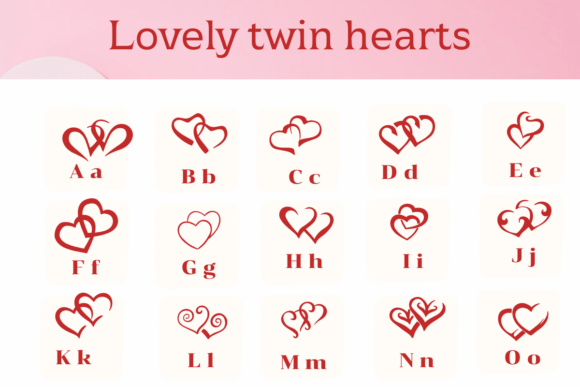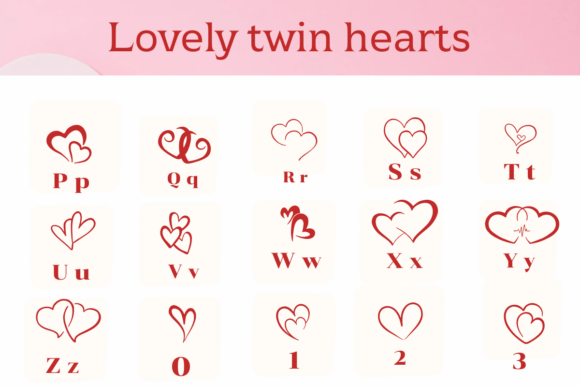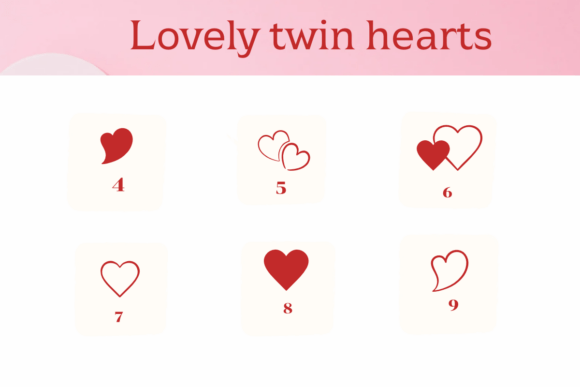
Introduction to Lovely Twin Hearts Font
As a designer, there’s nothing quite like the rush of inspiration that hits when you’re working on a creative project. It’s the moment when everything falls into place, and the perfect font is the missing piece that brings your vision to life. For many of us, that perfect font is a symbol of love and connection – and that’s exactly what the Lovely Twin Hearts Font delivers.
This charming and versatile dingbat font is a game-changer for designers looking for a high-quality design resource that’s both easy to use and versatile in its applications. With a range of styles to choose from, from simple outline drawings to bold, stylized double heart motifs, the Lovely Twin Hearts Font is perfect for crafting romantic logos, Valentine’s Day merchandise, wedding and engagement announcements, and more.
Key Features of Lovely Twin Hearts Font
- High-quality design resource ideal for creative projects, offering a unique and playful twist.
- Unique, hand-drawn design elements that add a touch of whimsy and personality to any project.
Honest Review: Lovely Twin Hearts Font
I recently had the opportunity to try out the Lovely Twin Hearts Font, and I must say it’s been a great addition to my design resource library. This font is perfect for any creative project that requires a touch of whimsy and romance.
- High-quality design that’s suitable for a wide range of applications
- Unique and playful characters that add a touch of personality to any project
- Not suitable for formal or professional projects, due to its playful and whimsical nature
- May not be ideal for text-heavy designs, as the characters can be quite elaborate
Overall, I’m quite impressed with the Lovely Twin Hearts Font. Its unique design and high-quality construction make it a valuable addition to any designer’s toolkit. While it may have some limitations, it’s perfect for creative projects that require a touch of personality and romance. ✨
Tips for Getting the Most Out of Lovely Twin Hearts Font
Use Lovely Twin Hearts Font to add a touch of whimsy and romance to your designs. Pair it with other fonts for a unique and creative look. Experiment with different font sizes and colors to get the most out of this design resource.
Use Lovely Twin Hearts Font for wedding invitations, baby shower invitations, and other romantic and whimsical designs. It’s also great for creating graphics and designs for social media, blogs, and websites.